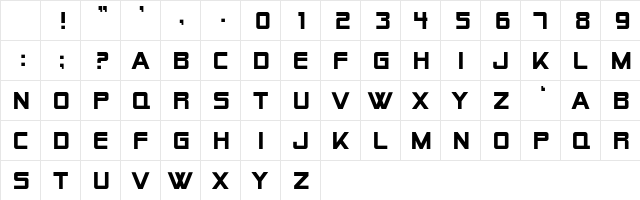
Complete SF Alien Encounters Solid Regular glyph index. Displaying only characters natively supported by SF Alien Encounters Solid Regular font.
SF Alien Encounters Solid is a composed and adaptable typeface that performs quietly and consistently across a wide range of design contexts.